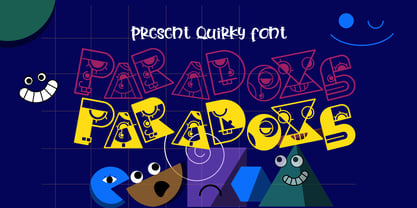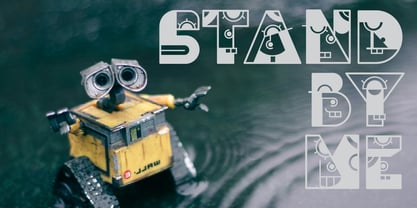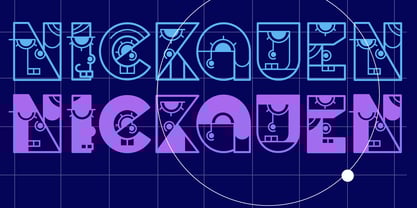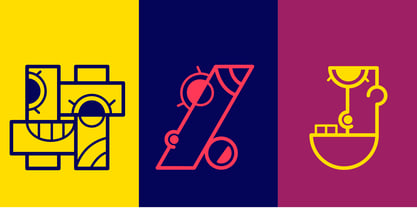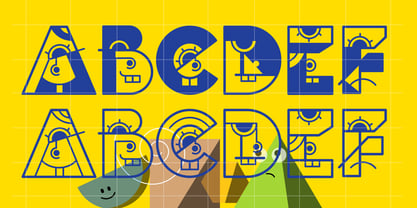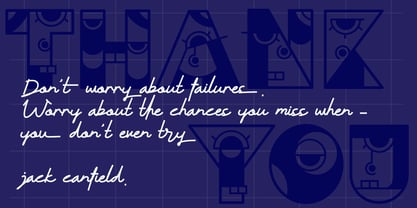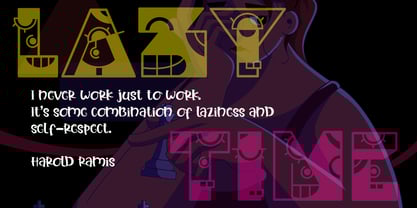
Paradoxs
von DLetters Studio
Die Schriftfamilie Paradoxs wurde von Diosi Julianto entworfen und von DLetters Studio veröffentlicht. Paradoxs enthält 2 Stile und Familienpaketoptionen.
Paradoxs is a quirky and fun display typeface, will be perfect for art, headline, books, greeting cards, logos, posters or anything that requires a fun and happiness and expression font look!
Designer: Diosi Julianto
Herausgeber: DLetters Studio
Foundry: DLetters Studio